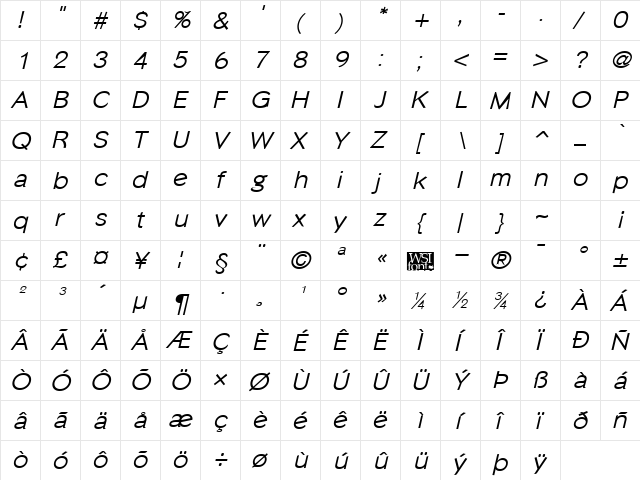
Phinster Italic
Design Context for Phinster Typeface
Phinster is a composed and adaptable typeface that performs quietly and consistently across a wide range of design contexts. The dynamic lean of this cut emphasises speed and emphasis in any layout.
Pro Tip: Try Phinster for annotation and caption copy alongside an upright companion — the contrast in angle creates a dynamic but ordered typographic system.